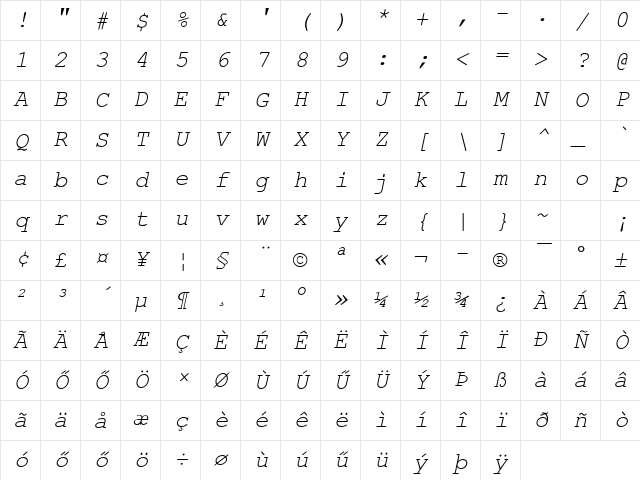
Courier New HU Italic
Design Context for Courier New HU
Courier New HU uses fixed-width spacing throughout, giving it the structured, systematic character associated with coding environments and technical documentation. The slanted form adds forward momentum and visual energy.